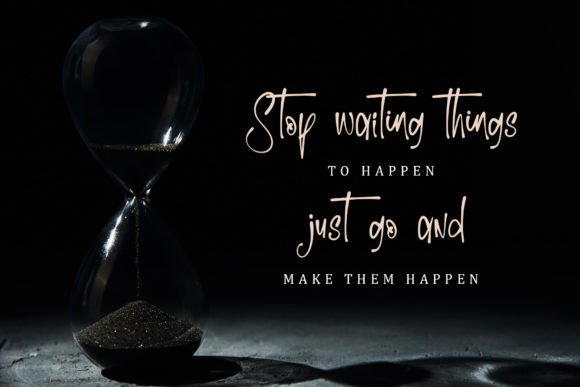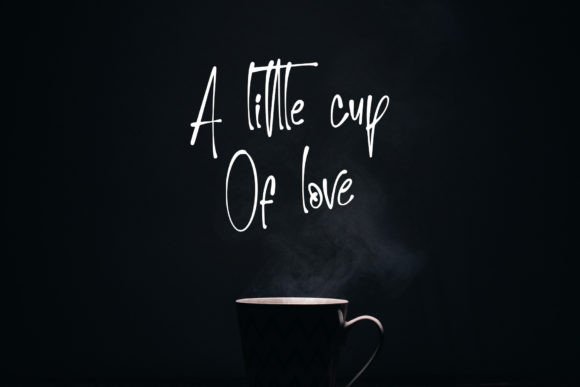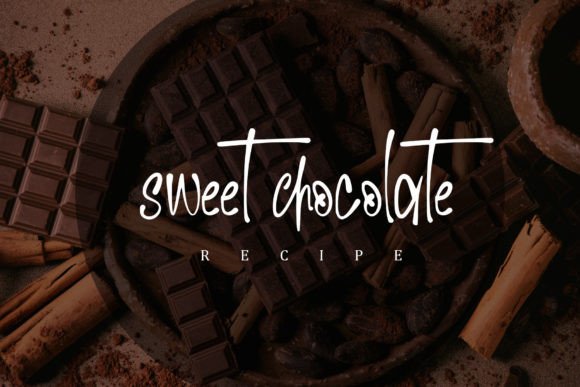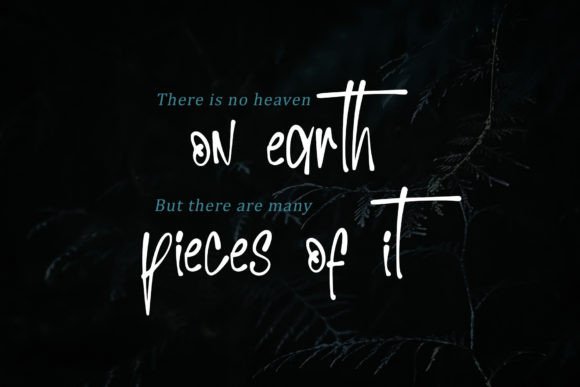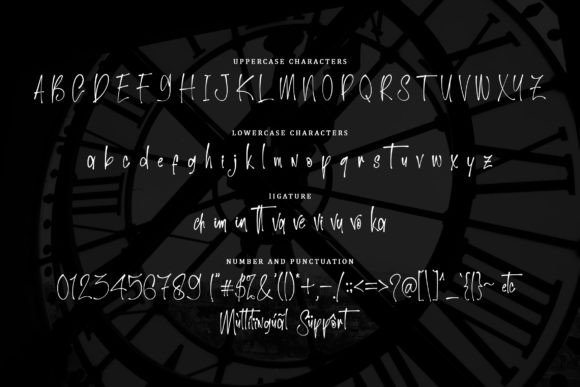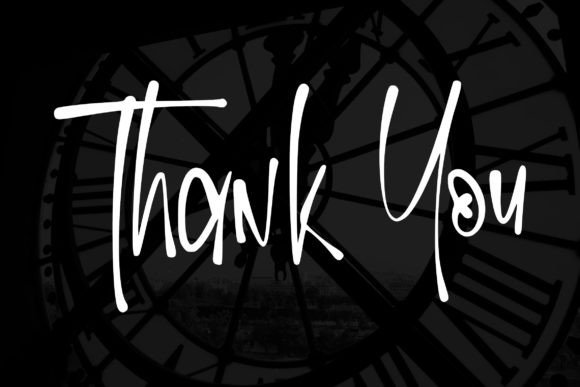
Introducing Crunch Time Font: Elevate Your Designs with a Unique Handwritten Script
In the world of design, fonts play a crucial role in conveying the message and aesthetic of a project. Whether you’re a seasoned designer or a crafty DIY enthusiast, finding the right font can make all the difference. If you’re on the hunt for a versatile and stylish handwritten font, look no further than Crunch Time Font. This modern script font is designed to add a touch of chic to your designs, making it perfect for a wide range of creative projects.
What is Crunch Time Font?
Crunch Time Font is a beautifully crafted handwritten font that boasts a unique and broad style. Its versatility makes it an excellent choice for various design applications, from digital projects to print materials. The font’s distinctive character is sure to capture the attention of your audience and leave a lasting impression.
Key Features of Crunch Time Font
- Handwritten Style: Crunch Time Font features a natural, handwritten look that adds a personal touch to your designs.
- Versatile: This font is suitable for a wide range of projects, including branding, packaging, posters, and more.
- PUA Encoded: The font is PUA (Private Use Area) encoded, which means you can easily access all the glyphs and characters without any hassle.
- Modern and Chic: Crunch Time Font is perfect for creating modern, stylish designs that are sure to impress.
Benefits of Using Crunch Time Font
So, why should you choose Crunch Time Font for your next design project? Here are just a few benefits of using this amazing font:
- Stand Out from the Crowd: With its unique and broad style, Crunch Time Font is sure to make your designs stand out from the competition.
- Easy to Use: The font’s PUA encoding makes it easy to access all the glyphs and characters, saving you time and effort.
- High-Quality Results: Crunch Time Font is designed to deliver high-quality results, ensuring that your designs look professional and polished.
- Perfect for Designers and Crafters: Whether you’re a seasoned designer or a crafty DIY enthusiast, Crunch Time Font is an excellent choice for any creative project.
How to Use Crunch Time Font in Your Designs
Using Crunch Time Font in your designs is easy! Here are a few tips to get you started:
- Pair it with Other Fonts: Crunch Time Font pairs well with other fonts, making it easy to create stunning font combinations.
- Experiment with Colors: The font’s versatility makes it suitable for use with a wide range of colors and textures.
- Use it for Headings and Titles: Crunch Time Font is perfect for use in headings and titles, adding a touch of style and sophistication to your designs.
In conclusion, Crunch Time Font is an excellent choice for designers and crafters looking for a unique and versatile handwritten font. Its modern and chic style makes it perfect for creating stunning designs that are sure to impress. With its PUA encoding and high-quality results, Crunch Time Font is a must-have for any creative project. So why wait? Download Crunch Time Font today and elevate your designs to the next level!